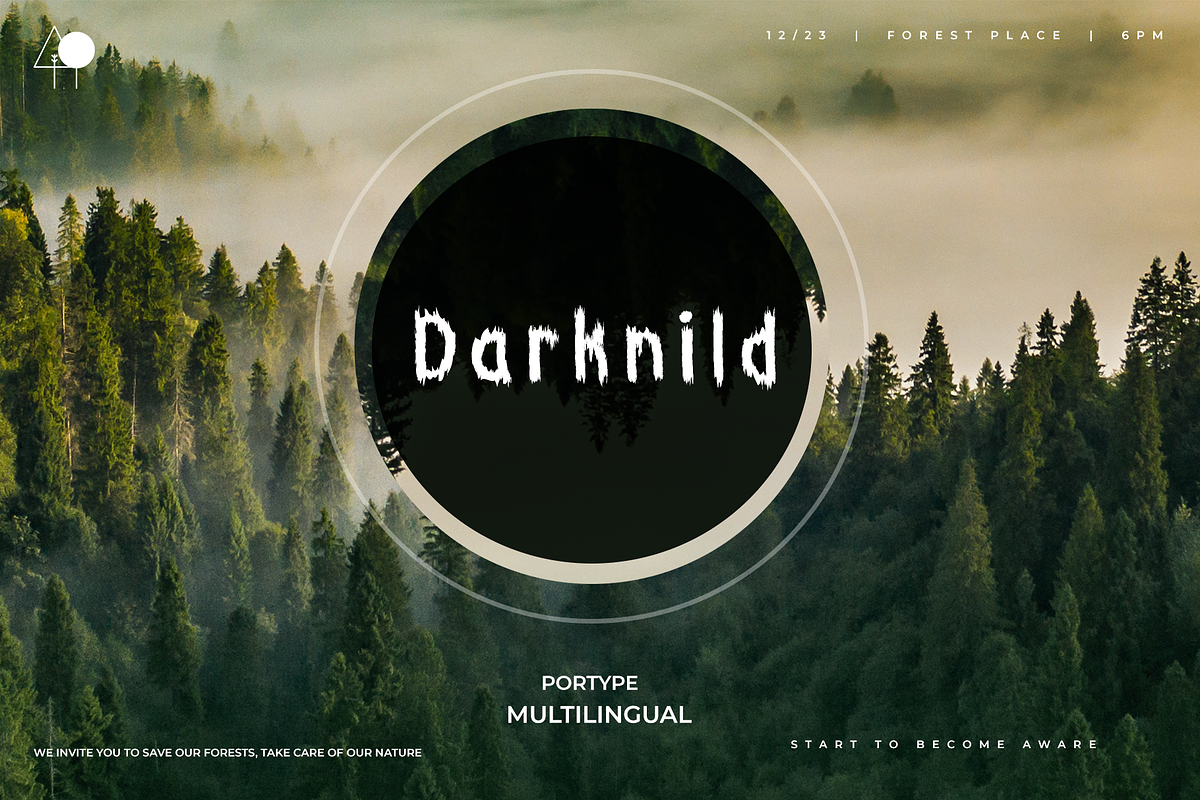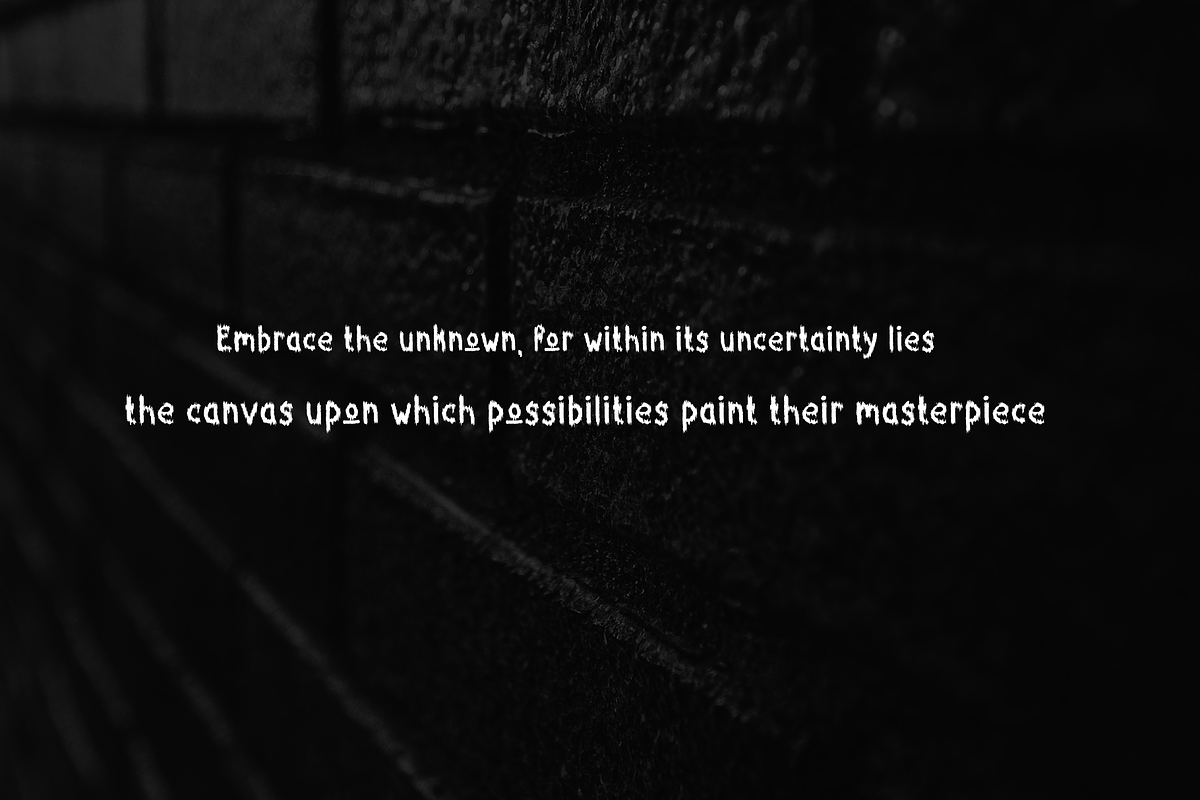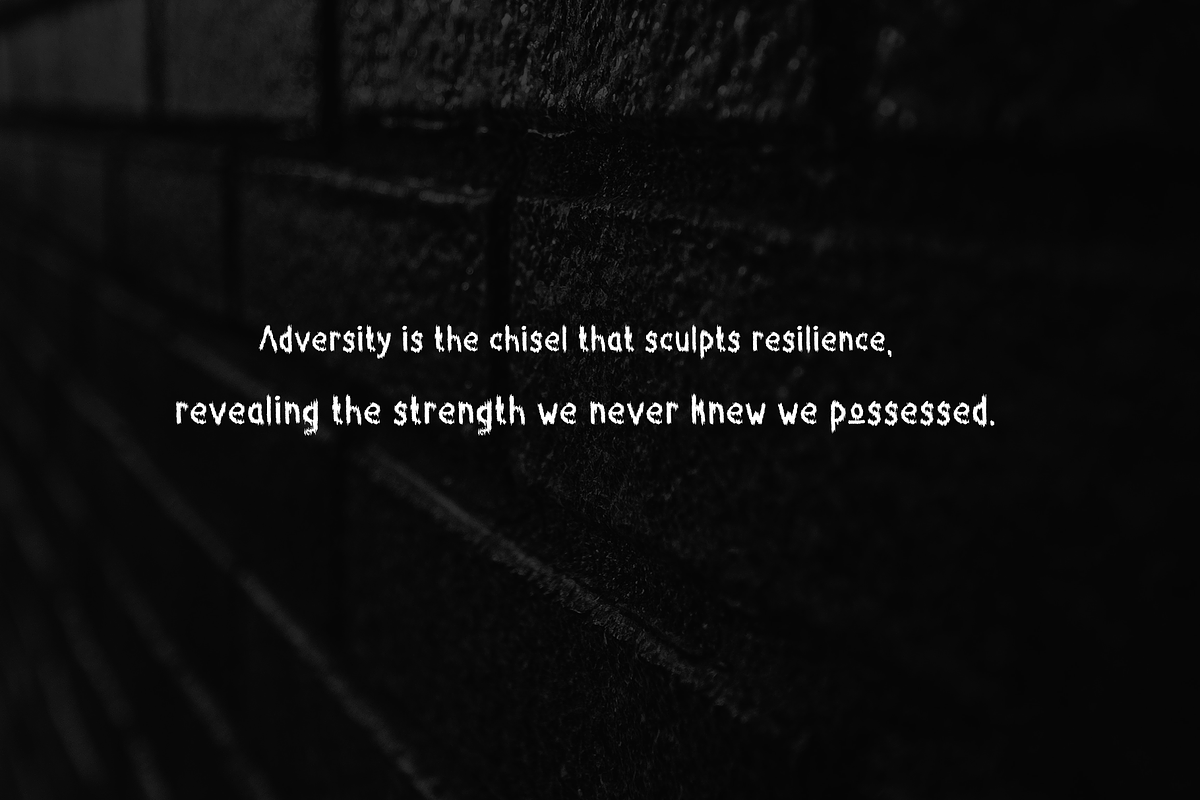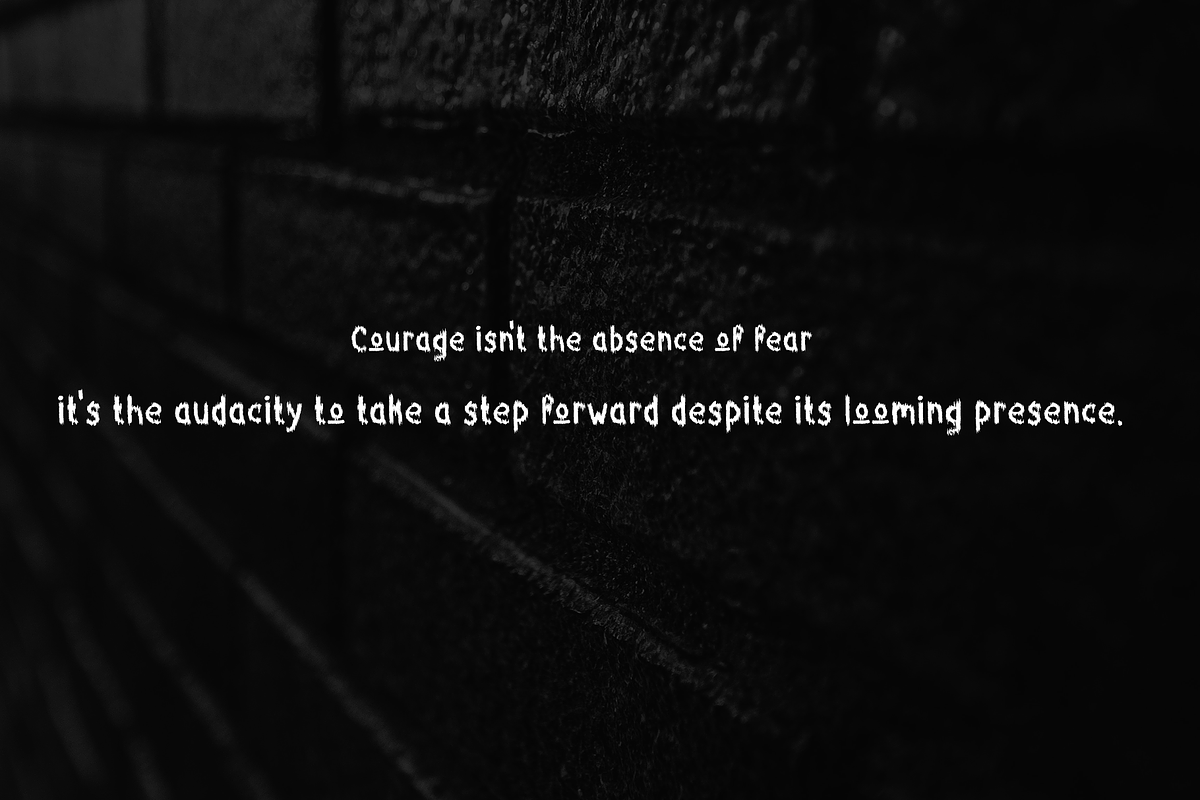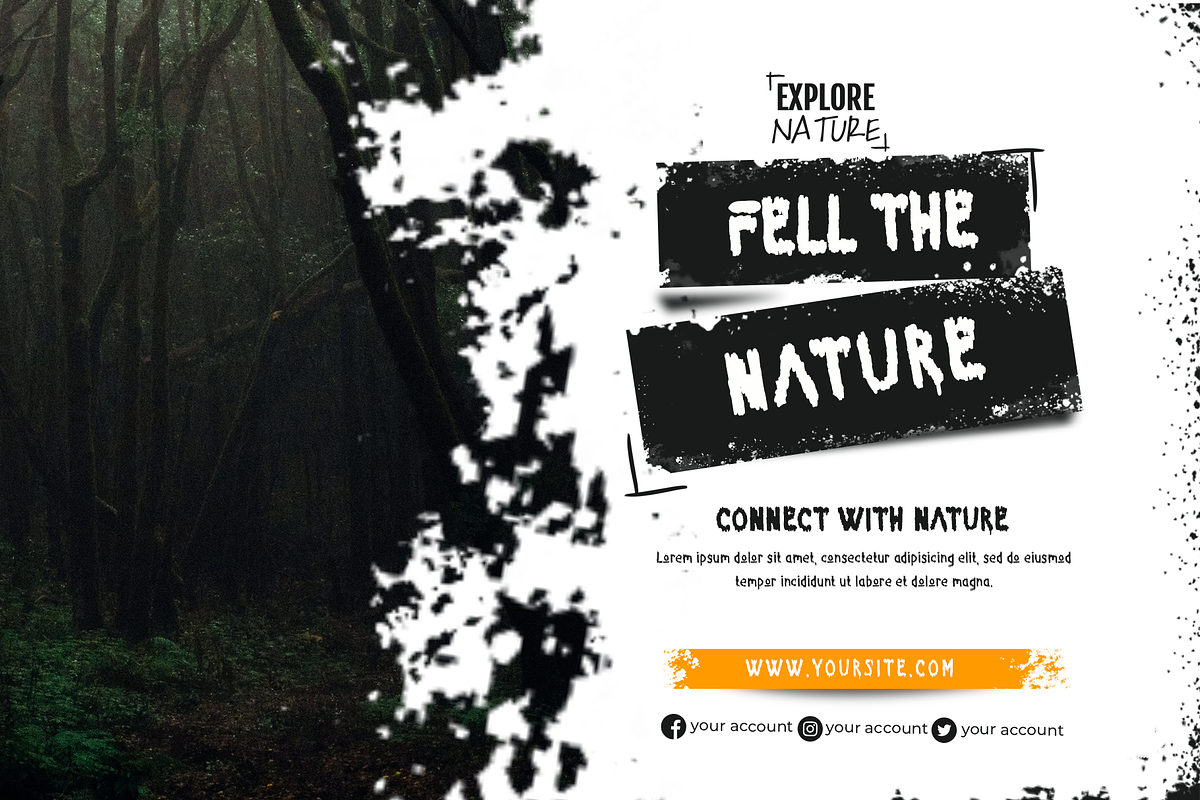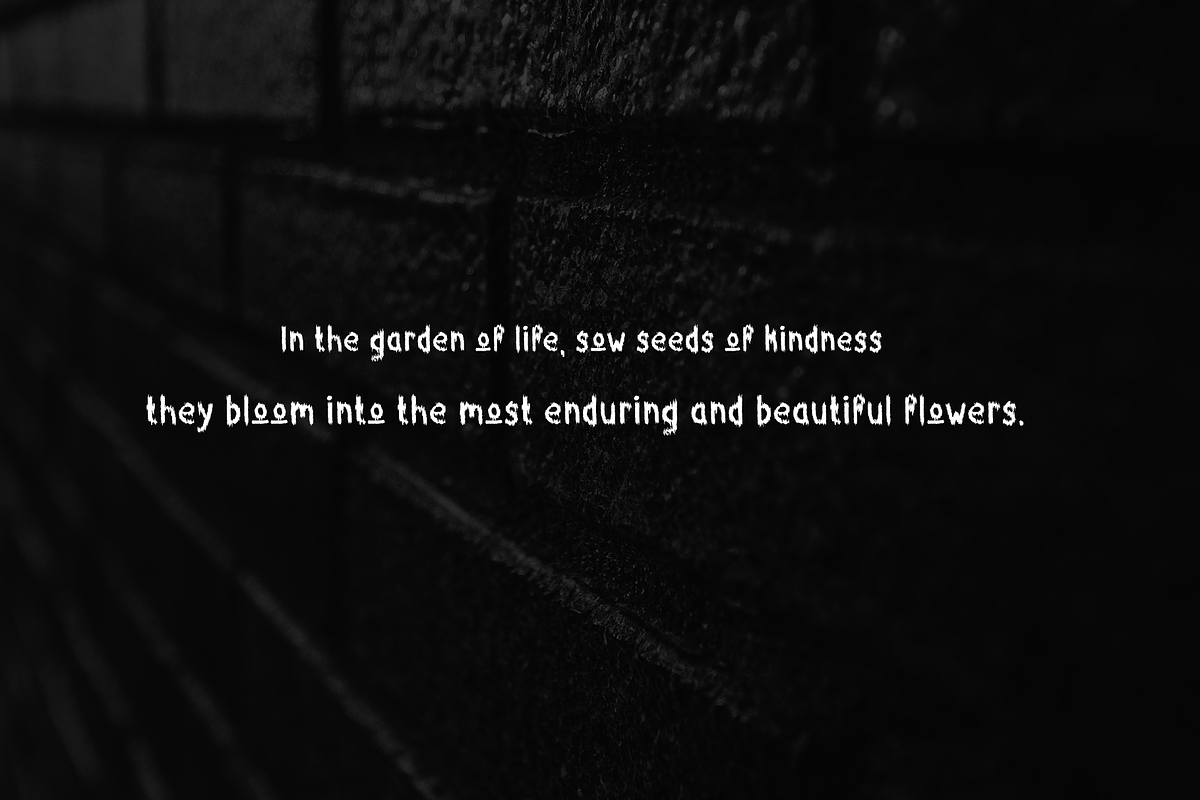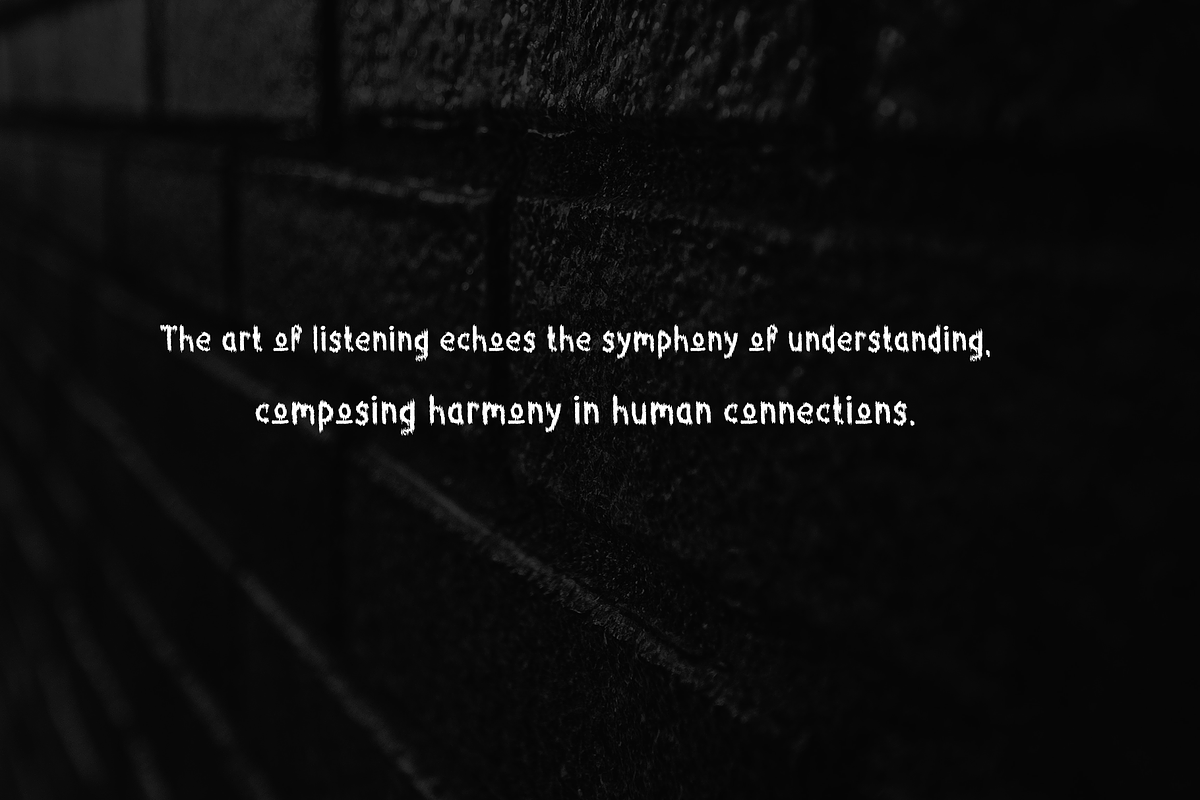
Darknild
Darknild as a horror font, emanates an unsettling and chilling aura with its sinister and foreboding design. Its letters are twisted and distorted, evoking an eerie and macabre feeling reminiscent of things lurking in the shadows. The font's jagged edges, irregular spacing, and unconventional letterforms contribute to an overall sense of unease and suspense.
Each character in Darknild's horror font is crafted to create an atmosphere of fear and suspense, resembling the handwriting of a tormented soul or the cryptic markings of an ancient, malevolent force. The irregularity in its strokes and the unnerving asymmetry of the letters add an element of unpredictability, enhancing the font's ability to unsettle and disturb.
Darknild's horror font is a perfect fit for horror-themed projects, haunted house promotions, spine-chilling movie posters, or any design endeavor aimed at inducing a sense of fear and apprehension. Its ability to convey a sense of darkness and foreboding makes it an impactful choice for creating an atmosphere of terror and mystery.
Overall, Darknild's horror font is a masterful tool for designers seeking to infuse their creations with an unsettling and ominous vibe, capturing the essence of fear and the unknown in every stroke and curve.